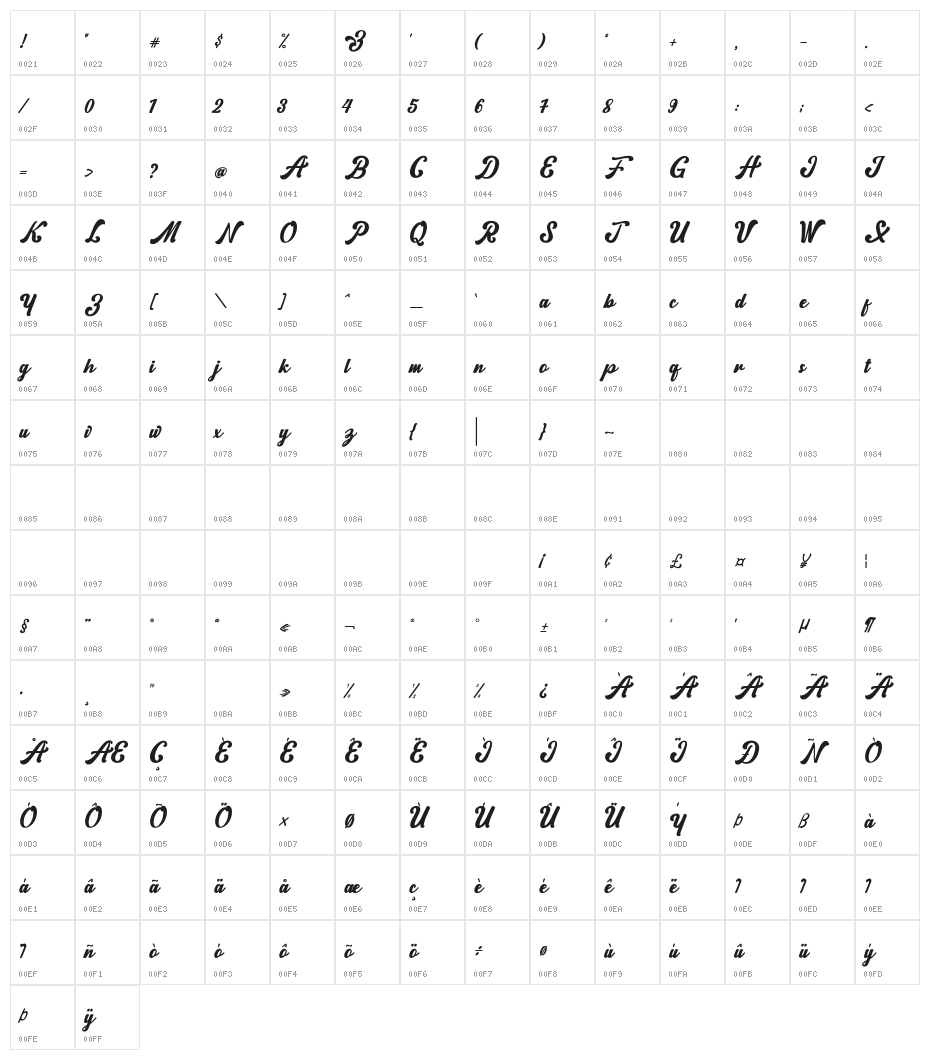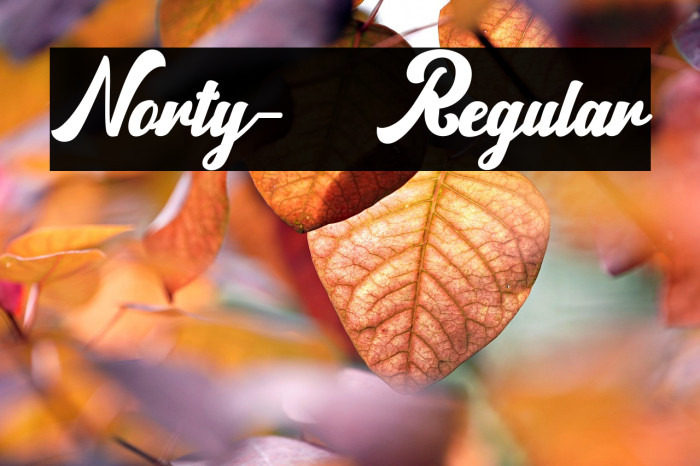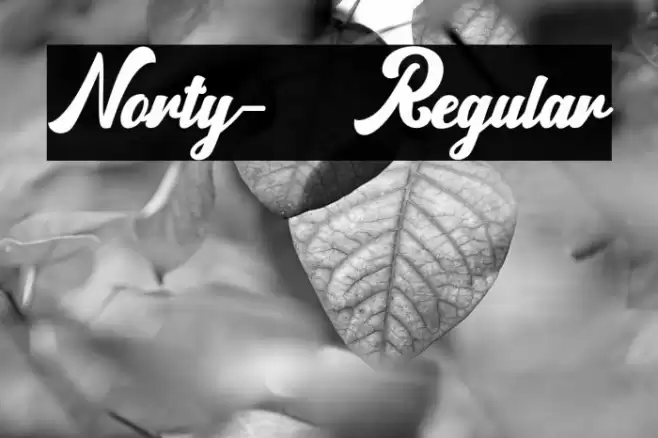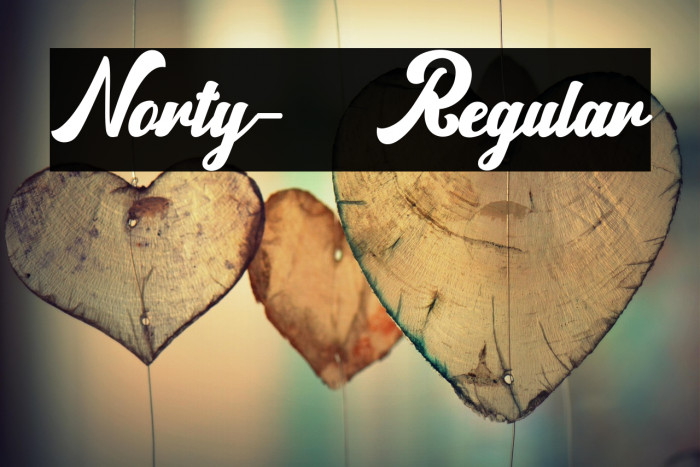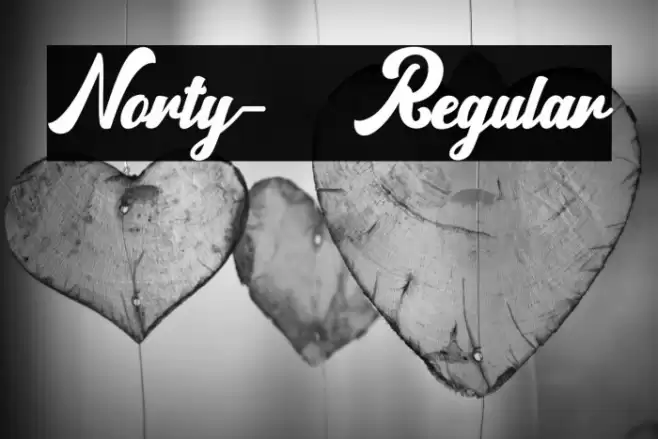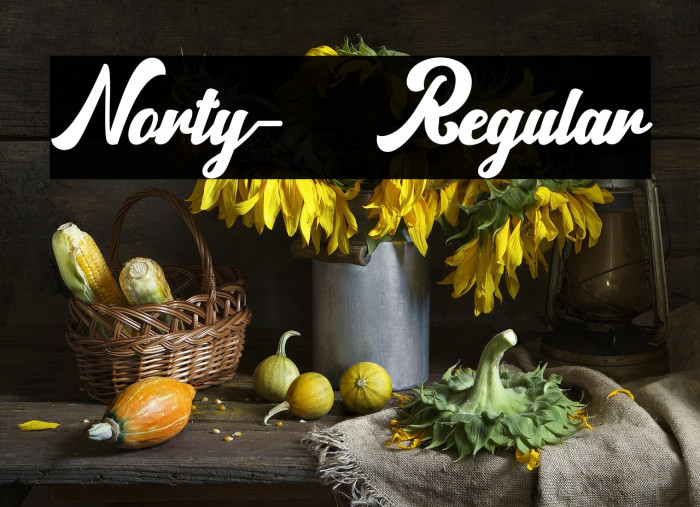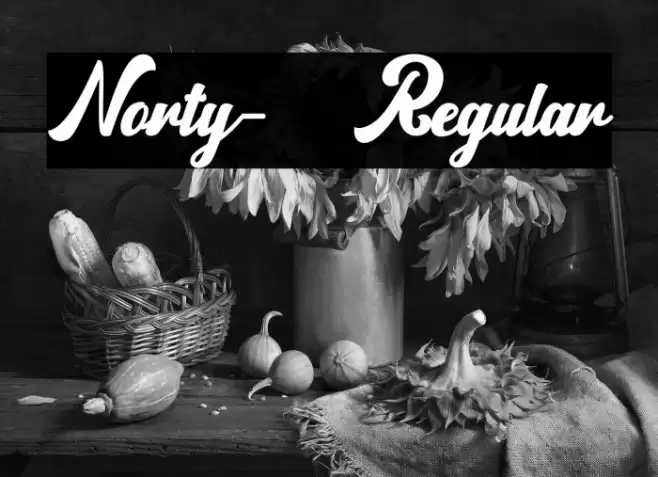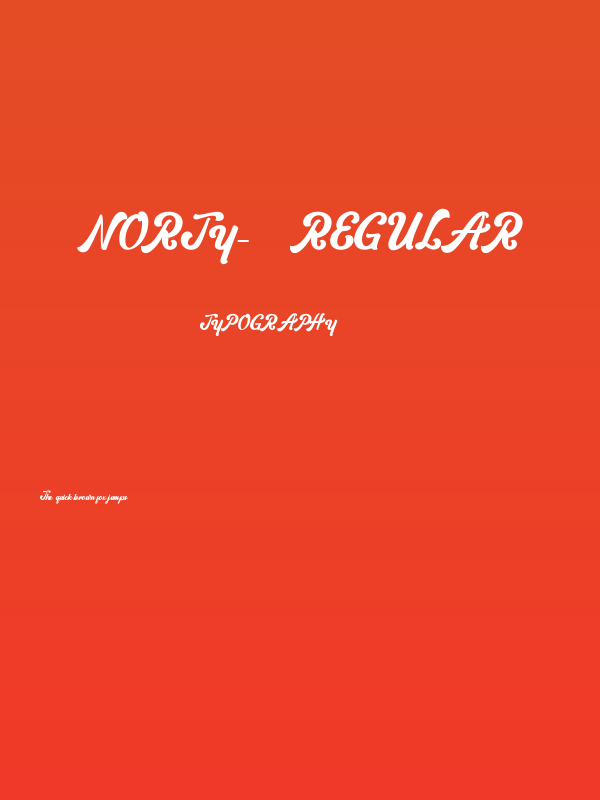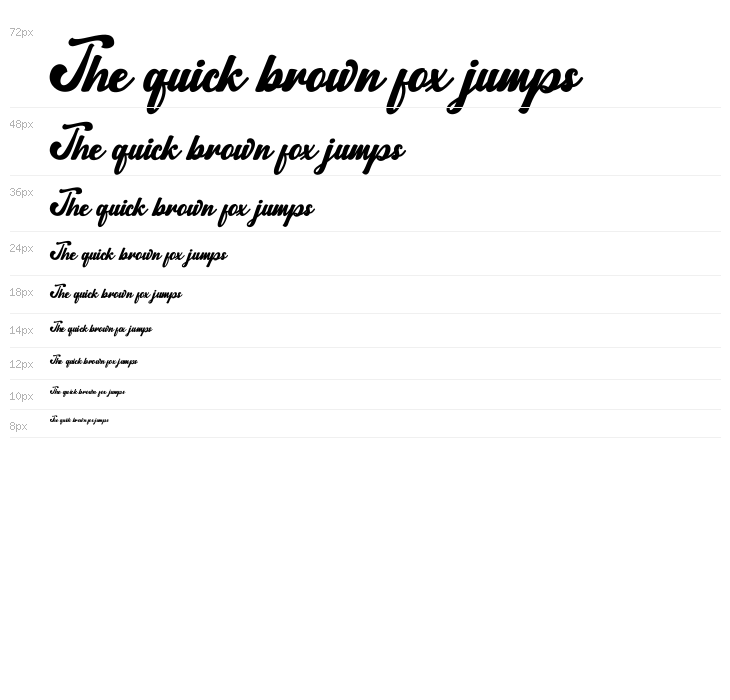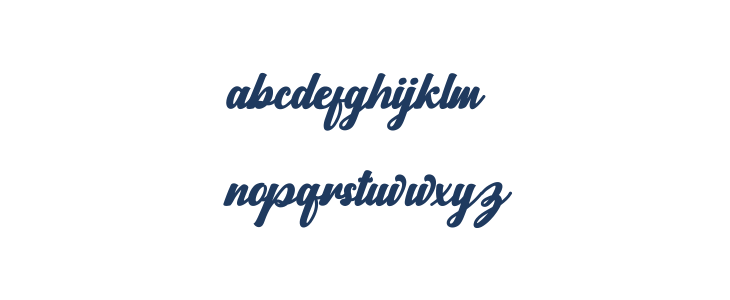
Norty-Regular Font
Norty-Regular Description
This font features a bold and flowing script style, characterized by its elegant and dynamic curves. The uppercase letters exhibit a sense of grandeur with their sweeping lines and decorative flourishes, while the lowercase letters maintain a consistent flow, enhancing readability. The numerals are designed with a similar flair, ensuring they complement the overall aesthetic. Special characters are crafted with attention to detail, adding a touch of sophistication. This font exudes a sense of elegance and creativity, making it suitable for a variety of design applications.